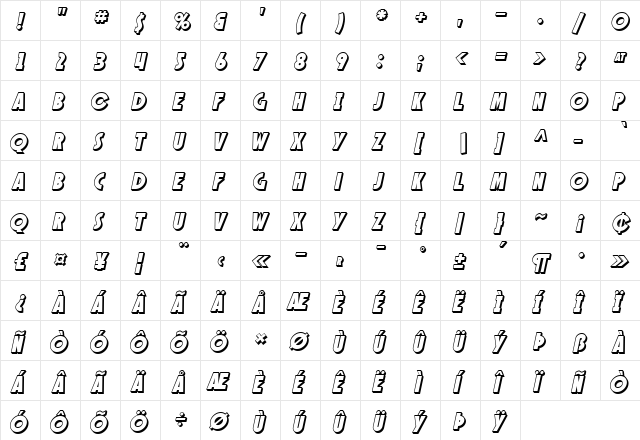
SF Speakeasy Shaded Oblique
Design Context for SF Speakeasy Shaded Typeface
SF Speakeasy Shaded is a composed and adaptable typeface that performs quietly and consistently across a wide range of design contexts. The dynamic lean of this cut emphasises speed and emphasis in any layout.
Pro Tip: Use SF Speakeasy Shaded for emphasis, pull quotes, and subheadings where its slanted energy can add rhythm to the layout.